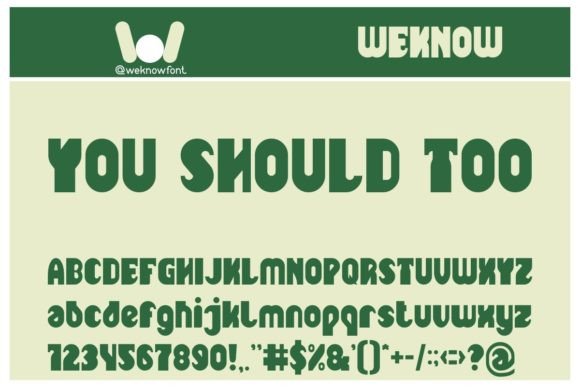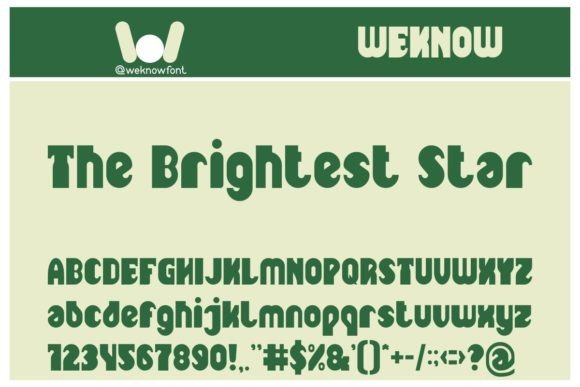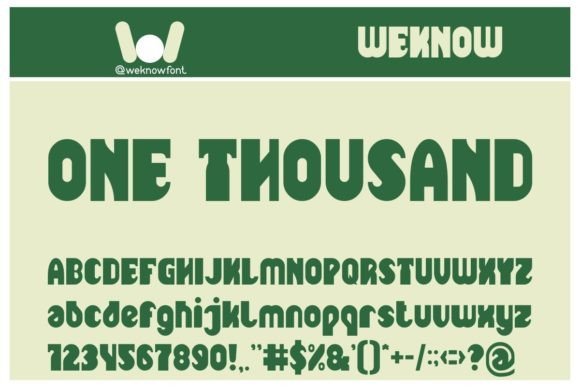
Introduction to One Thousand Font
One thousand is a fancy sans serif font suitable for a logo, logotype, headline, corporate identity, brand identity, apparel industry, poster, music, movie, game, magazine, book, comic, cartoon, YouTube, Instagram, website, or any of your creative design projects.
One thousand is a fancy sans serif font suitable for a logo, logotype, headline, corporate identity, brand identity, apparel industry, poster, music, movie, game, magazine, book, comic, cartoon, YouTu
Key Features of One Thousand Font
Why Choose One Thousand Font?
One Thousand Font offers exceptional quality and versatility, making it a valuable addition to your design toolkit. Whether you’re creating for personal projects or commercial use, One Thousand Font delivers professional results.